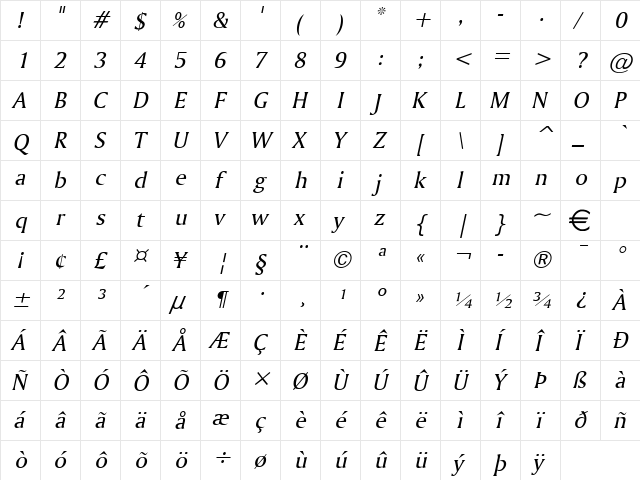
Ameretto Italic
Design Context for Ameretto Typeface
Ameretto is a composed and adaptable typeface that performs quietly and consistently across a wide range of design contexts. Its italic angle brings a sense of urgency and motion to the letterforms.
Pro Tip: Try Ameretto for annotation and caption copy alongside an upright companion — the contrast in angle creates a dynamic but ordered typographic system.